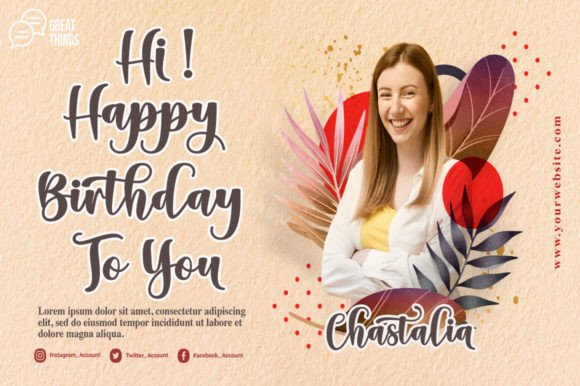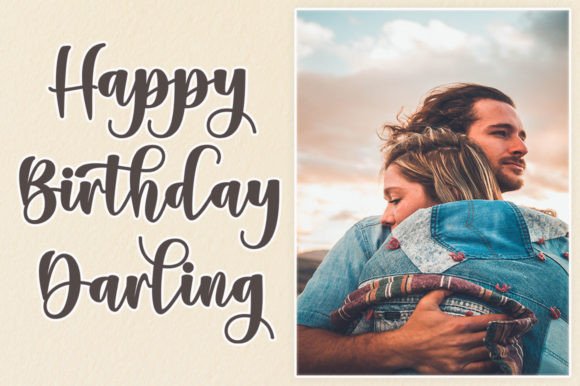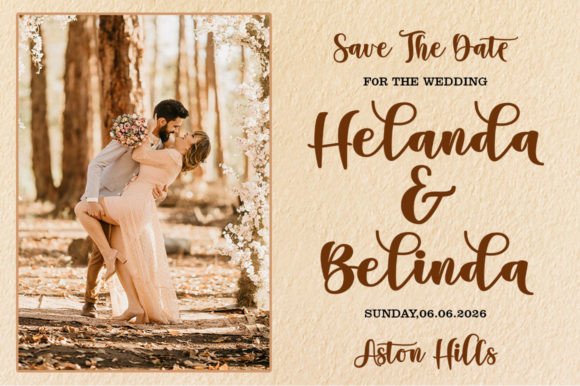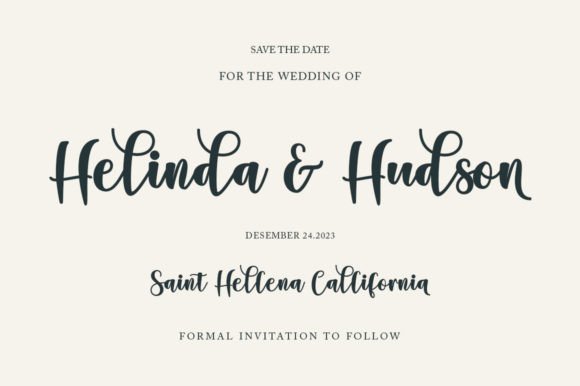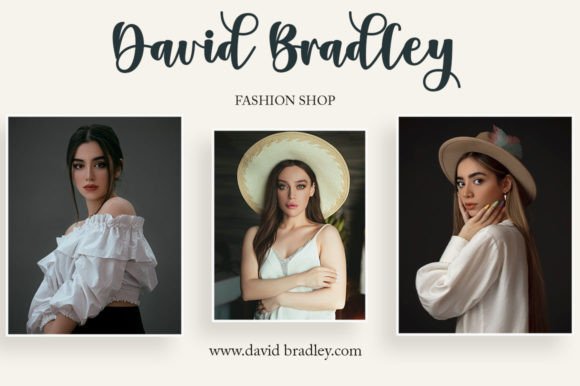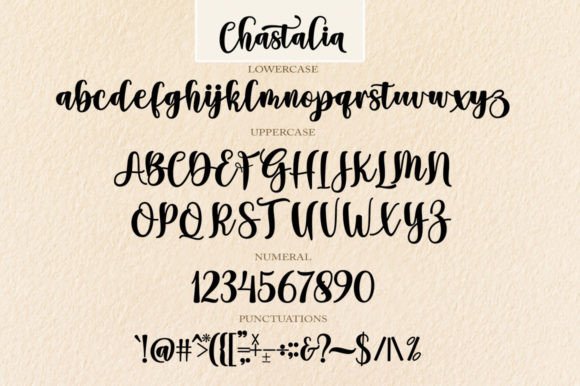
Introducing Chastalia Font: Add a Touch of Whimsy to Your Designs
Are you tired of using the same old fonts in your designs? Look no further than Chastalia, a lovely script font that is sure to add a touch of whimsy and charm to any project. With its playful characters that seem to dance along the baseline, Chastalia is the perfect choice for designers and crafters looking to make their ideas stand out.
What Makes Chastalia Special?
Chastalia is more than just a pretty font – it’s also highly functional. This script font features charming, playful characters that are sure to add a touch of personality to any design. Whether you’re working on a logo, a poster, or a digital project, Chastalia is the perfect choice for adding a bit of flair.
One of the standout features of Chastalia is its PUA (Private Use Area) encoding. This means that you can access all of the glyphs and swashes with ease, giving you even more creative freedom to experiment with different looks and styles.
Chastalia is a versatile font that is perfect for a wide range of design projects. Whether you’re a professional designer or a crafter working on a DIY project, this font is sure to inspire your creativity. Here are just a few ways you can use Chastalia:
- Logos and branding: Use Chastalia to create a unique and memorable logo that reflects your brand’s personality.
- Posters and flyers: Add a touch of whimsy to your posters and flyers with Chastalia’s playful characters.
- Digital projects: Use Chastalia to add a personal touch to your digital projects, such as social media graphics, blog posts, and more.
- Crafting projects: Chastalia is also perfect for crafters working on projects such as card making, scrapbooking, and journaling.
Tips for Using Chastalia
Here are a few tips for getting the most out of Chastalia:
- Experiment with different sizes: Chastalia looks great in a variety of sizes, from small and delicate to large and bold.
- Play with swashes: Use Chastalia’s swashes to add a touch of elegance and sophistication to your designs.
- Mix and match: Don’t be afraid to mix and match Chastalia with other fonts to create a unique and interesting look.